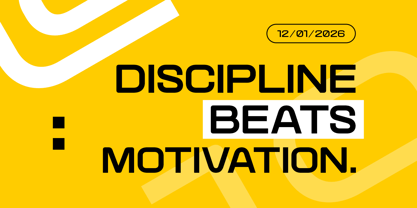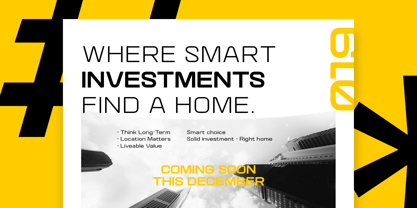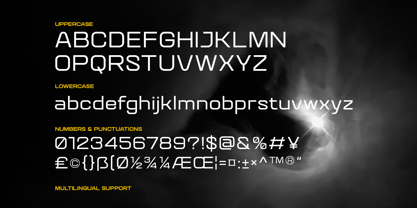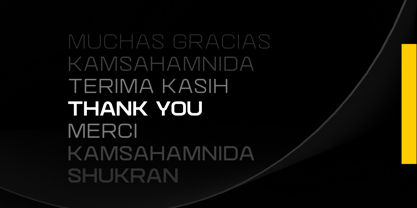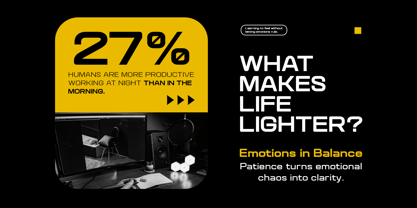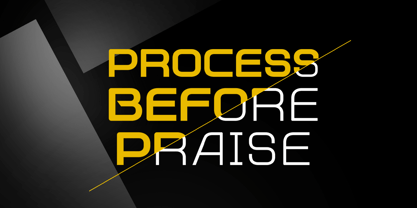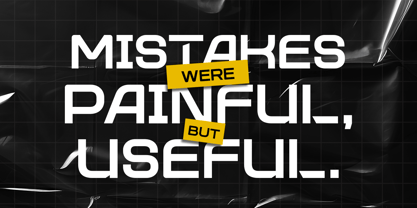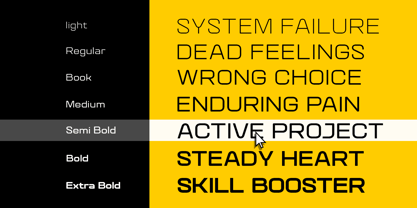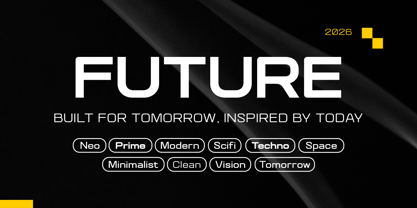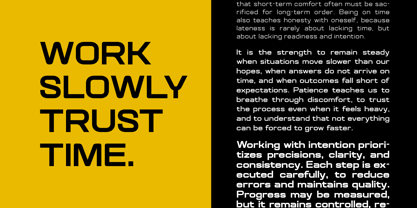
Quantix
La familia tipográfica Quantix fue diseñada por Ahmad Ramzi Fahruddin y publicada por Arterfak Project. Quantix contiene 7 estilos y opciones de paquete familiar. Más información sobre esta familia
Quantix is a cutting-edge sans-serif typeface characterized by its wide and squarish proportions. Available in seven distinct weights, it enhances both techno-futuristic and sporty designs. This versatile typeface is perfectly suited for a variety of applications, including logos, branding, signage, product interfaces, small text, editorials, posters, and websites. Each weight of Quantix brings its own unique character: the lightest styles exude elegance and a clean, refined impression, while the Regular weight conveys formality and confidence, making it ideal for structured layouts. The bolder weights make strong statements and create high impact, perfect for headlines. Together, these weights create a tactical blend of futuristic style and versatility. With over 350 glyphs and robust multilingual support, Quantix is designed for modern, industrial-driven projects that aspire to stand out, scale, and grow.